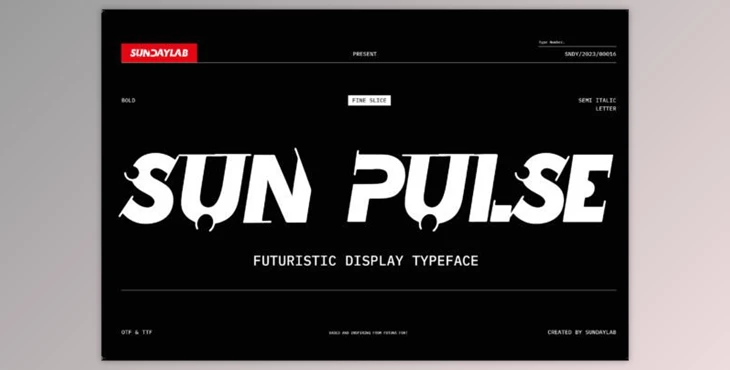
Sunpulse Futuristic Typeface Font: Sunpulse, a striking display font, is the perfect medium for conveying messages in your designs. Its bold, futuristic characters make it well-suited for various media, including posters, flyers, magazine covers, books, vinyl, CDs, and more.
With Sunpulse, infuse your designs with a bold and futuristic flair, ensuring your messages stand out across various platforms.